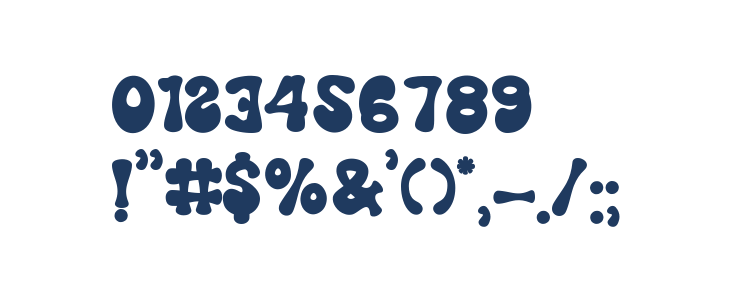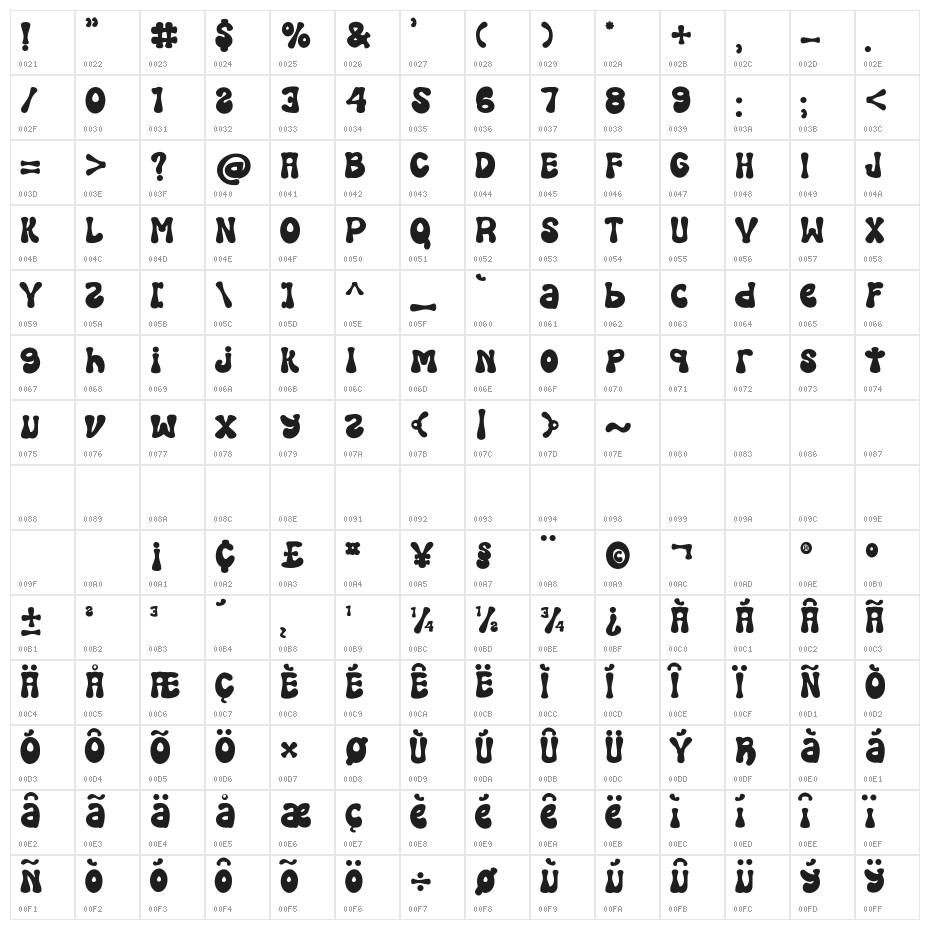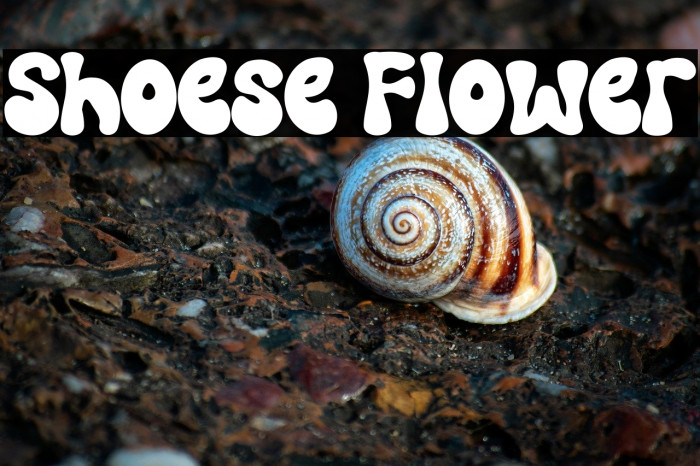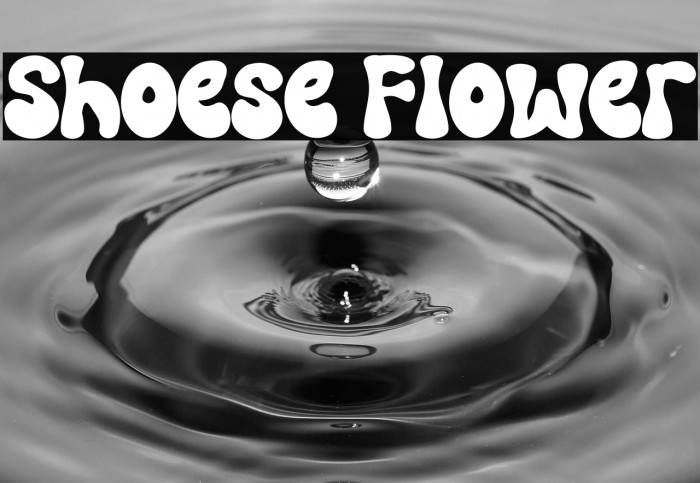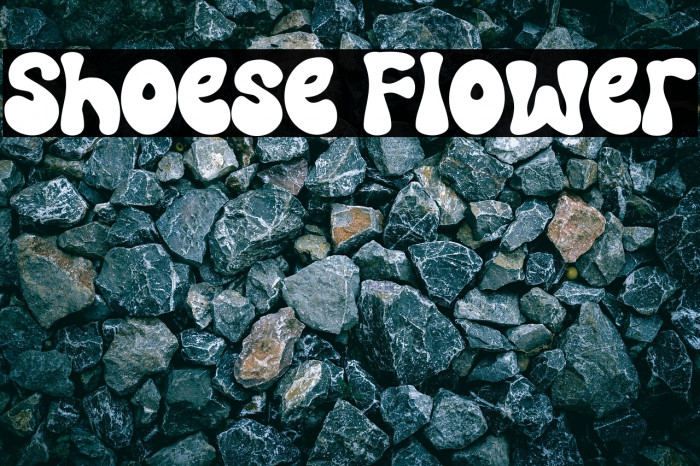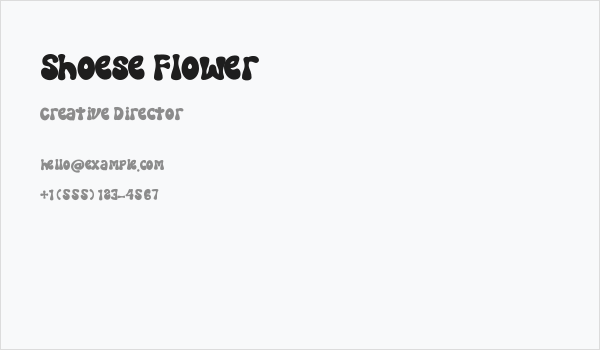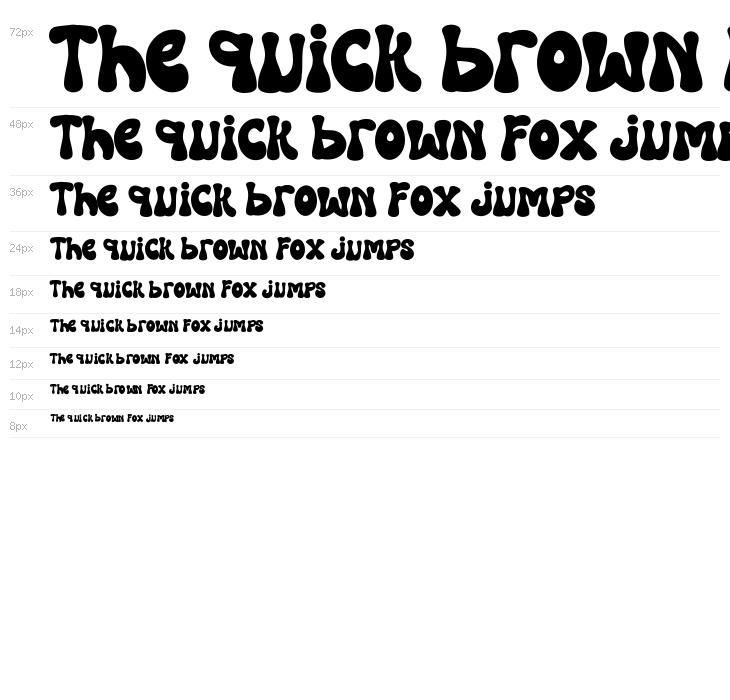
Shoese Flower Font
Shoese Flower Description
This playful and bold typeface features thick, rounded characters with a whimsical and bubbly appearance. Each letter is crafted with a sense of fun and creativity, making it stand out with its unique, almost cartoonish style. The font's heavy weight and rounded edges give it a friendly and approachable feel, perfect for designs that aim to capture attention and convey a sense of joy. The characters are evenly spaced, ensuring readability while maintaining a lively and dynamic look. Its distinctive style makes it ideal for projects that require a touch of personality and flair.